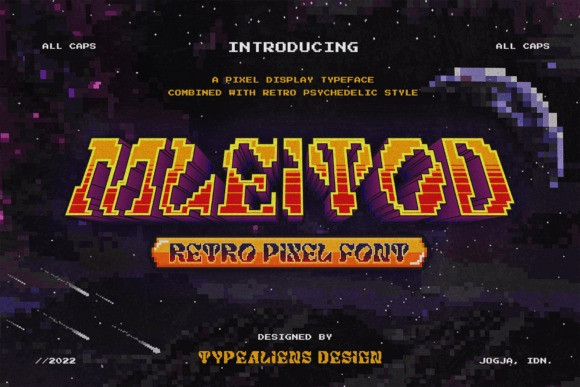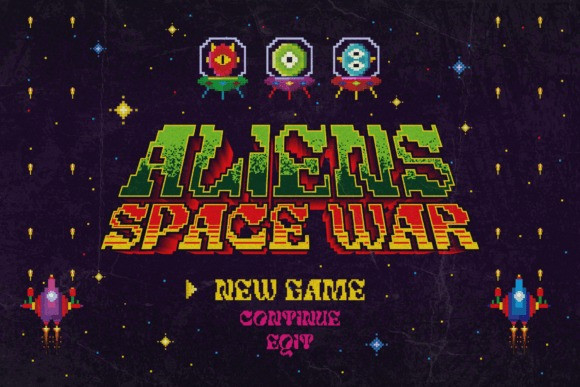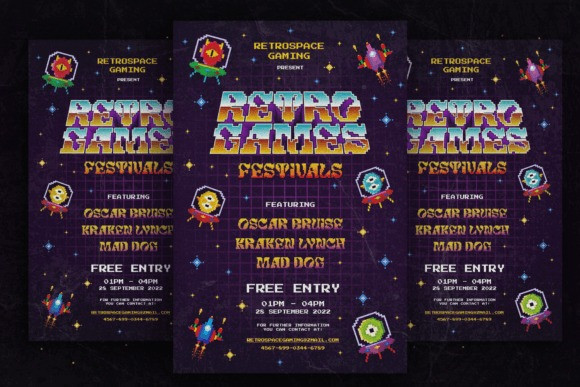
Mleitod Font
MLEITOD is a display font based on bold serifs combined with a psychedelic style and given a low pixel effect like in a game. With its pixelated stroke characteristics, this font is perfect for different or unique designs such as in games or for bands and music event posters.
The uniqueness of this font is psychedelic-pixel, it can be categorized as a vintage font because usually old school games use this style plus it can be used for bands because psychedelic is also found in one genre of music.